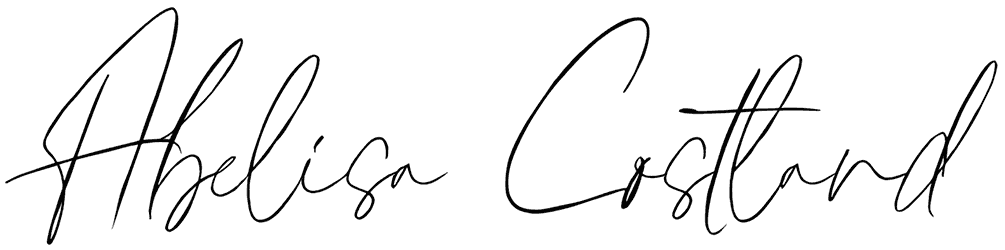
Romantic Collection Font
Let’s illustrate an appealing and modern design with a classic face like the Romantic Collection. This handwritten font consists of casual and delicate letters that can be harmonized with many formal or informal projects. Set this calligraphy font for your coming design from business cards to social media posts, and overjoy the results.
Agung Rohmat – alphArt
Designed by: AlphArtype